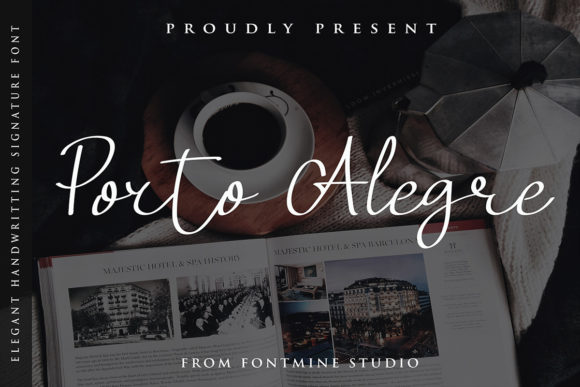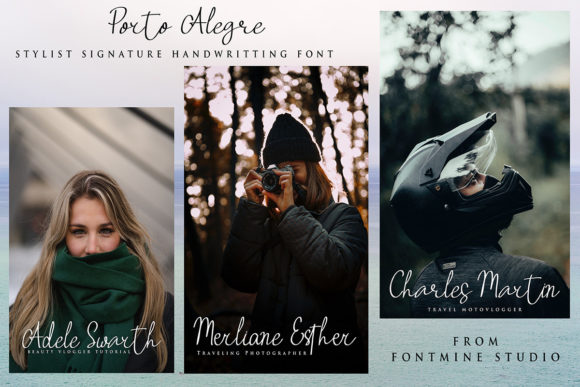
About Porto Alegre Font
Porto Alegre is an elegant and stylist signature handwritten font. It is an ideal choice for watermark on photography, signature or logo design, flyer designs and more.